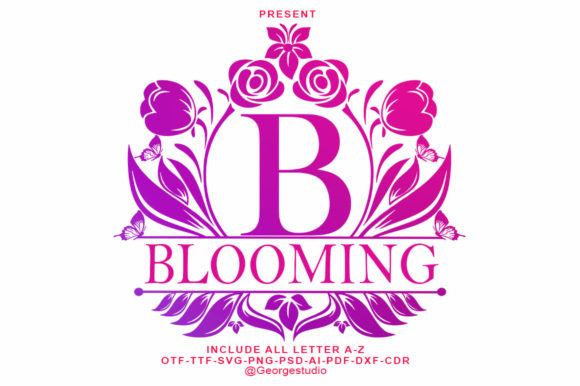
Introducing Blooming Monogram Font, an exquisite decorative font that will captivate your senses and add an enchanting touch to your creative projects. Crafted by the renowned George Studio, this font exudes elegance and sophistication with its intricate ornaments and graceful curves. Prepare to be mesmerized by its timeless beauty and unparalleled versatility.
With Blooming Monogram Font, you'll embark on a creative journey filled with endless possibilities. Its ornate characters will transform your wedding invitations into ethereal works of art, leaving a lasting impression on your guests. It will breathe life into your stationary art, adding a touch of delicate charm and elegance. Your social media posts will blossom with creativity as this font elevates your content, capturing the attention of your audience. And as you craft heartfelt greeting cards, Blooming Monogram Font will infuse them with warmth and personality, making every message a cherished keepsake.
Fall in love with the genuine feel of Blooming Monogram Font. Its carefully crafted details and harmonious flow will add a touch of enchantment to your designs, making them stand out from the ordinary. Its versatility knows no bounds, making it the perfect choice for a myriad of projects, from elegant logos and branding materials to playful posters and flyers. Its exquisite nature will leave an unforgettable mark on your audience, leaving them captivated by your creativity.
Experience the allure of Blooming Monogram Font today and unlock a world of captivating designs. Its beauty and versatility will transform your creative projects into masterpieces, leaving a lasting impression on all who encounter them. Embrace the magic of Blooming Monogram Font and elevate your designs to new heights.